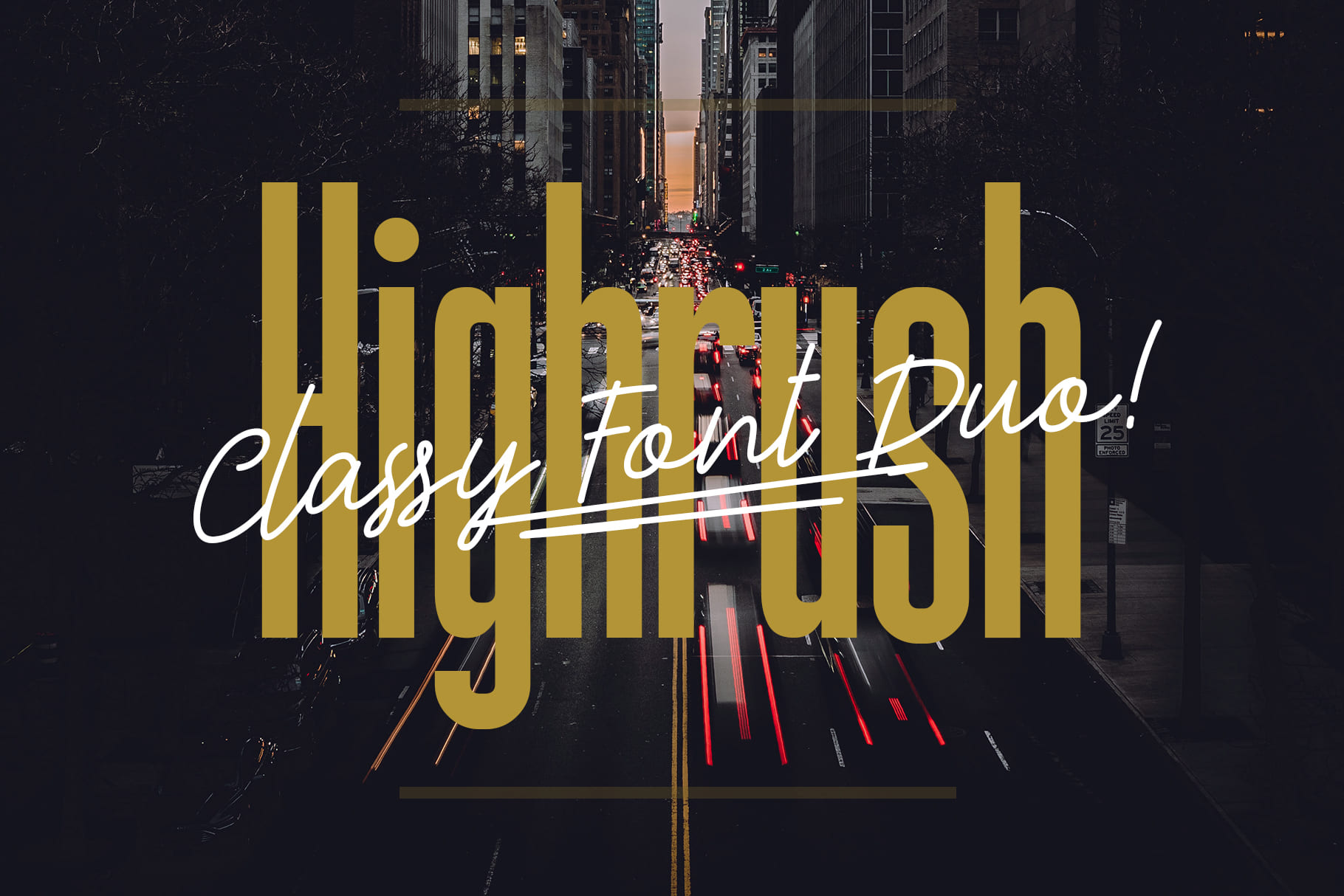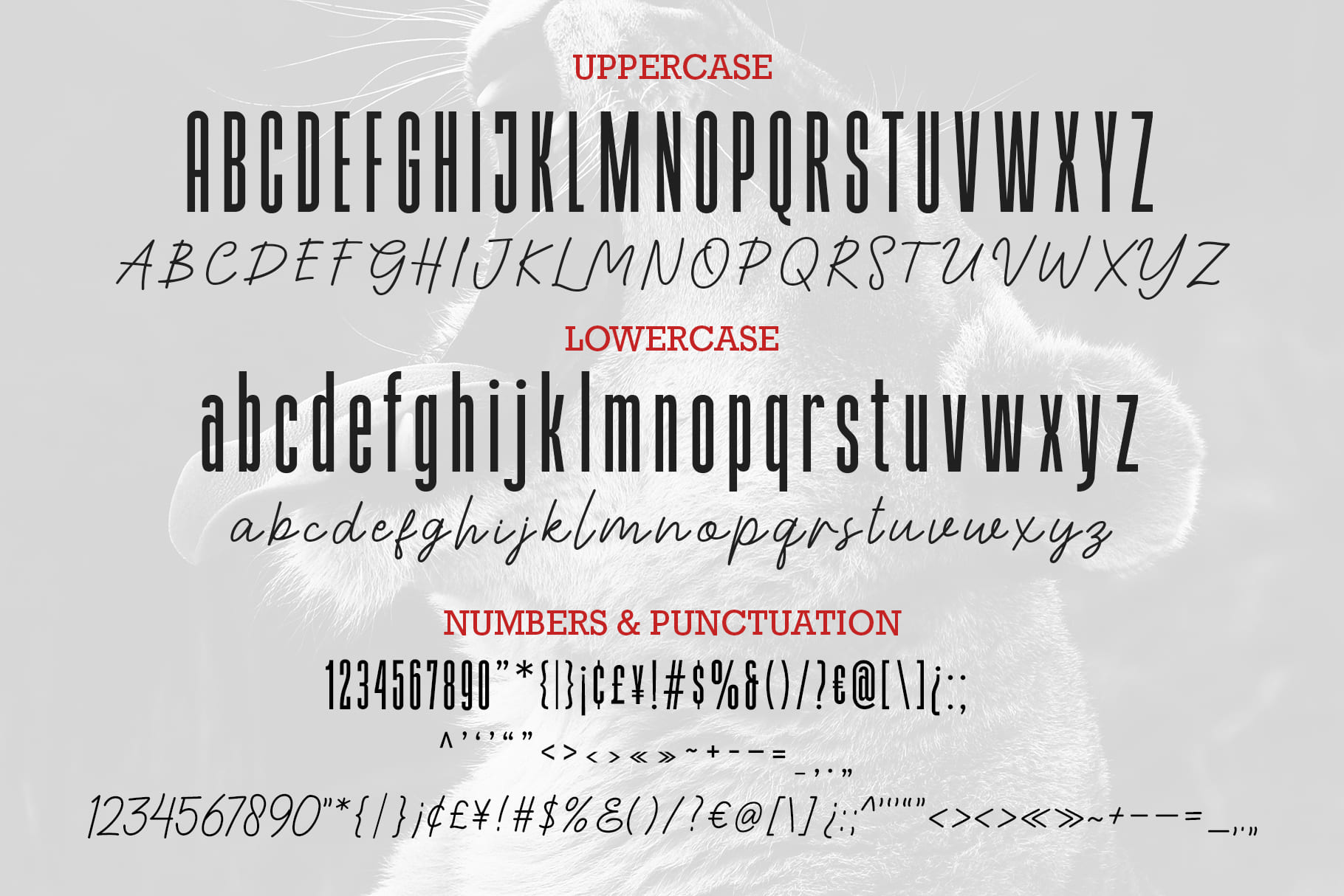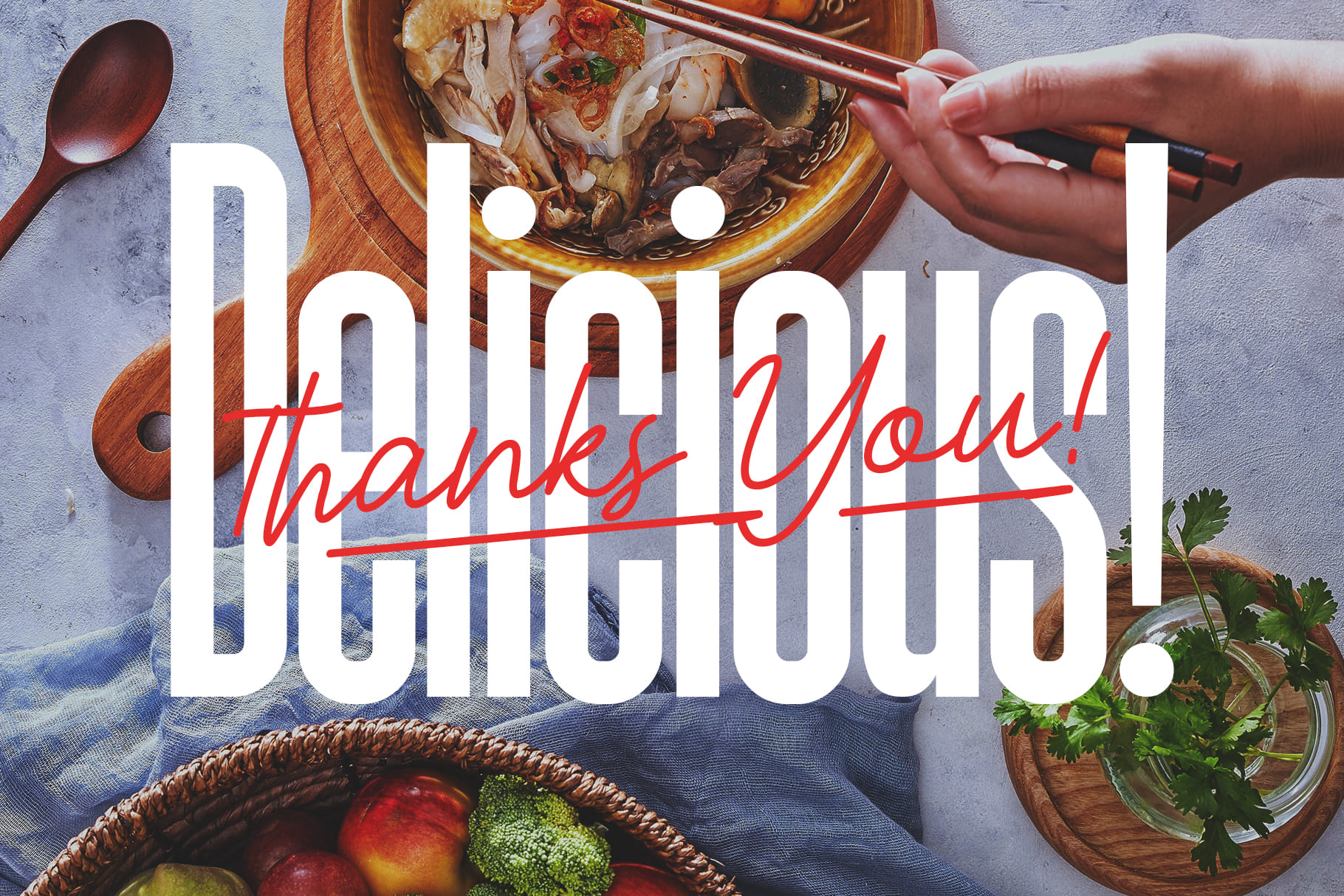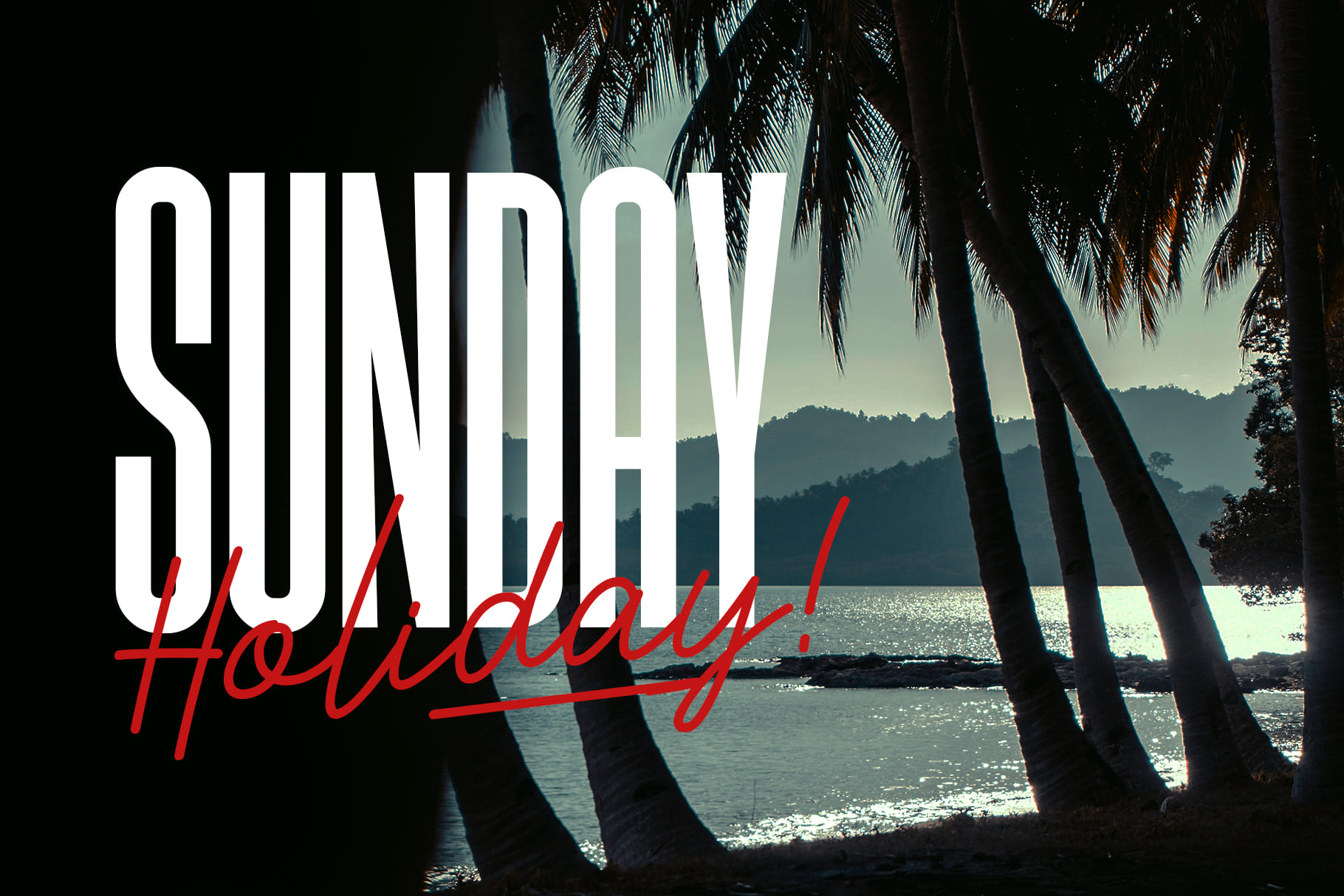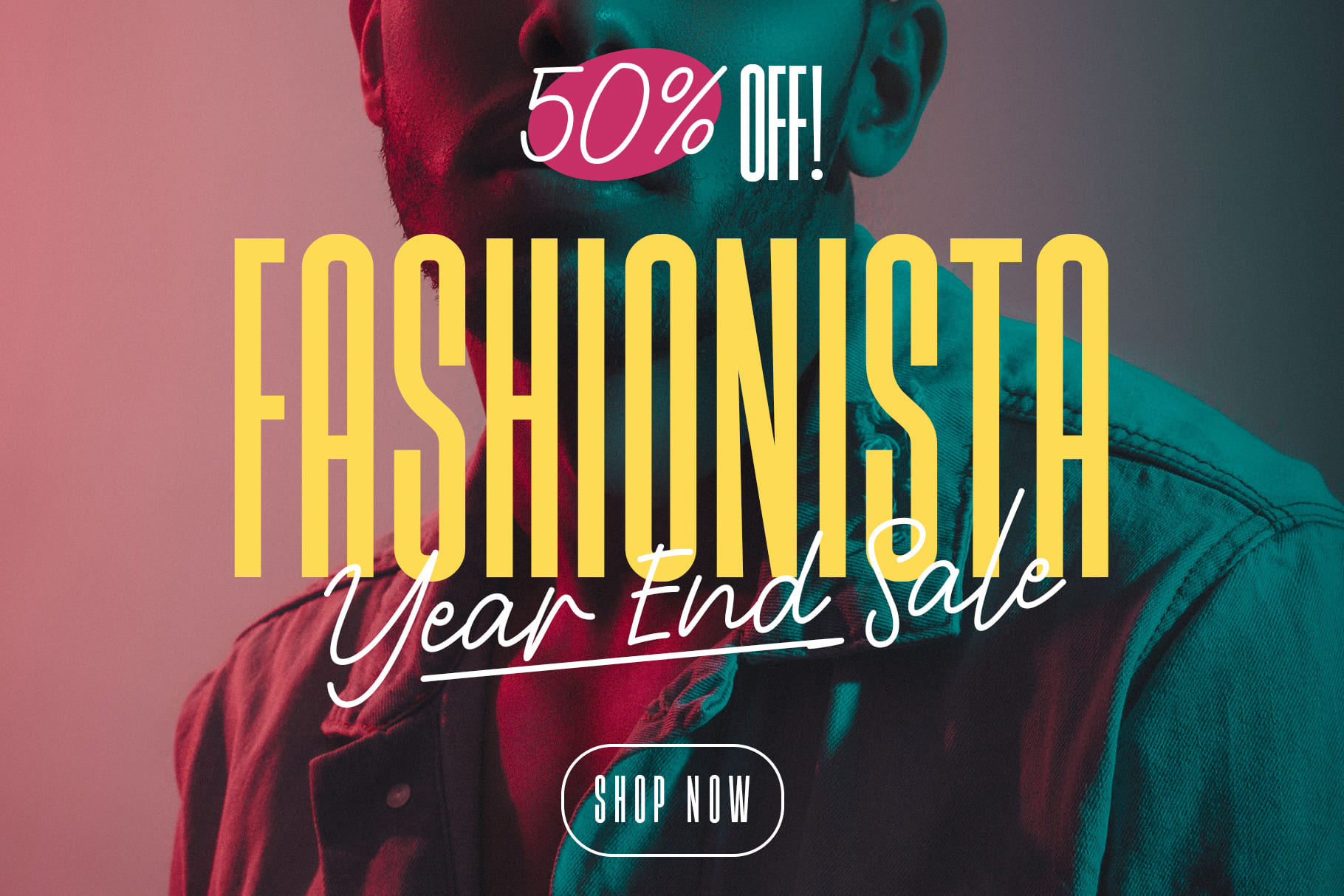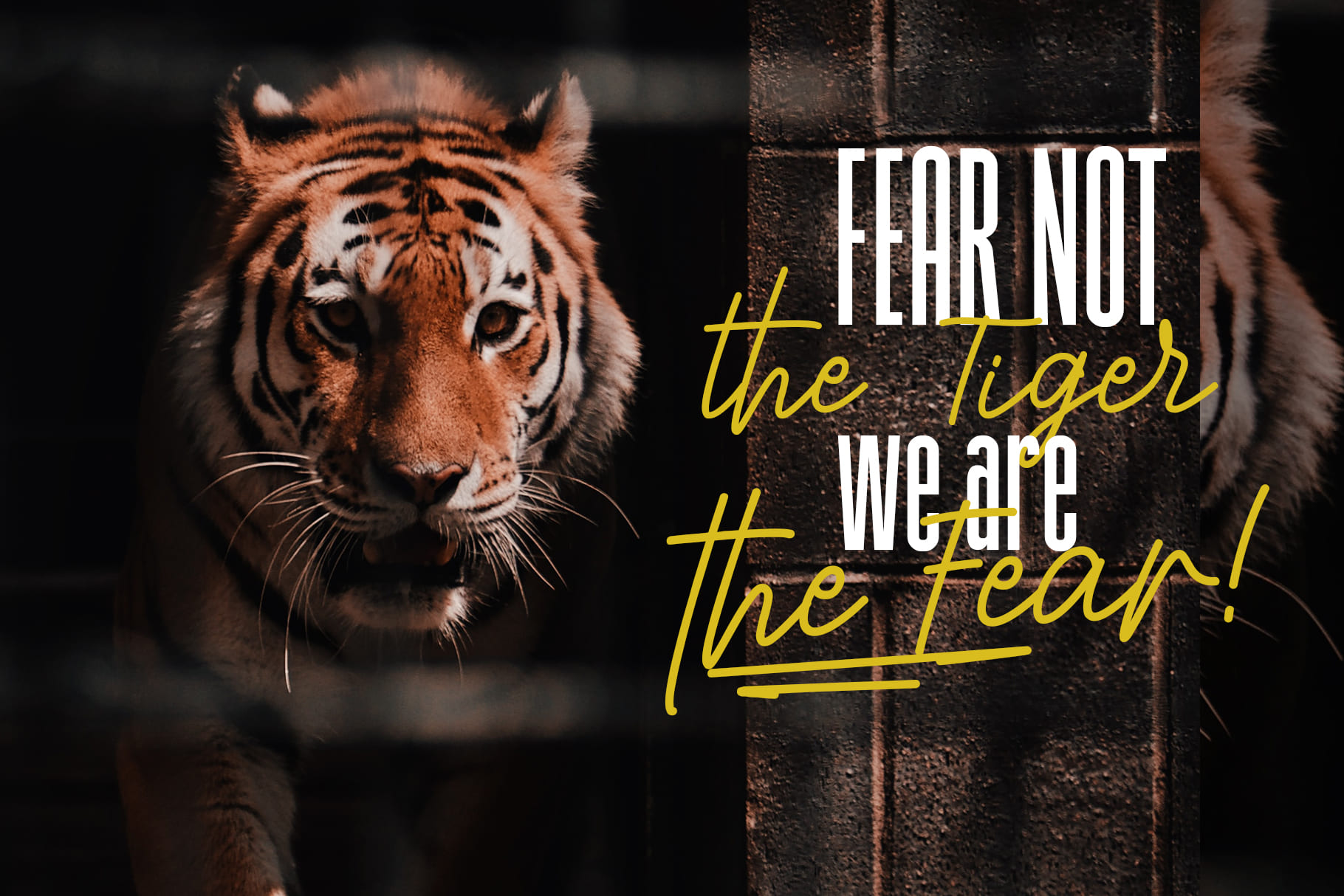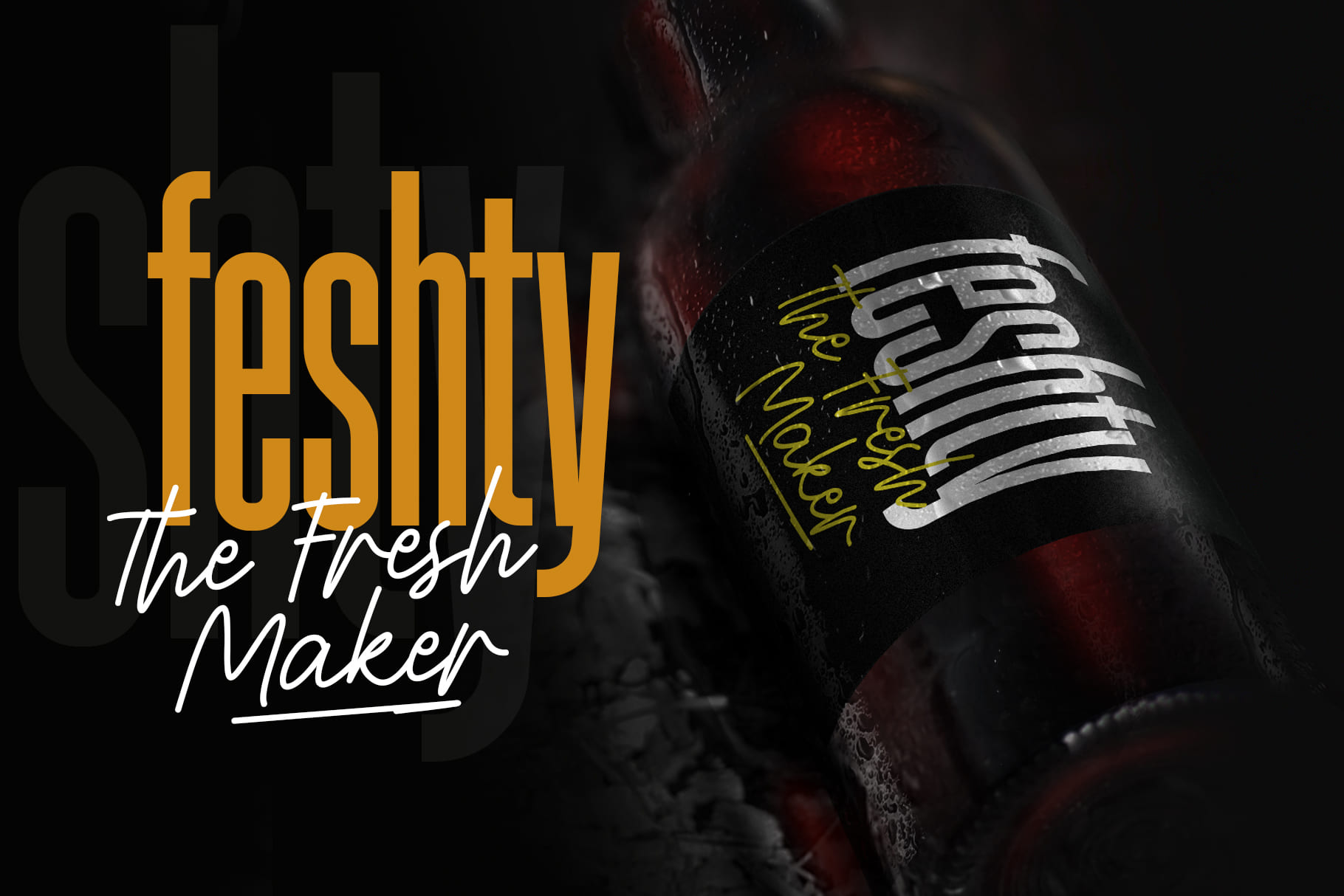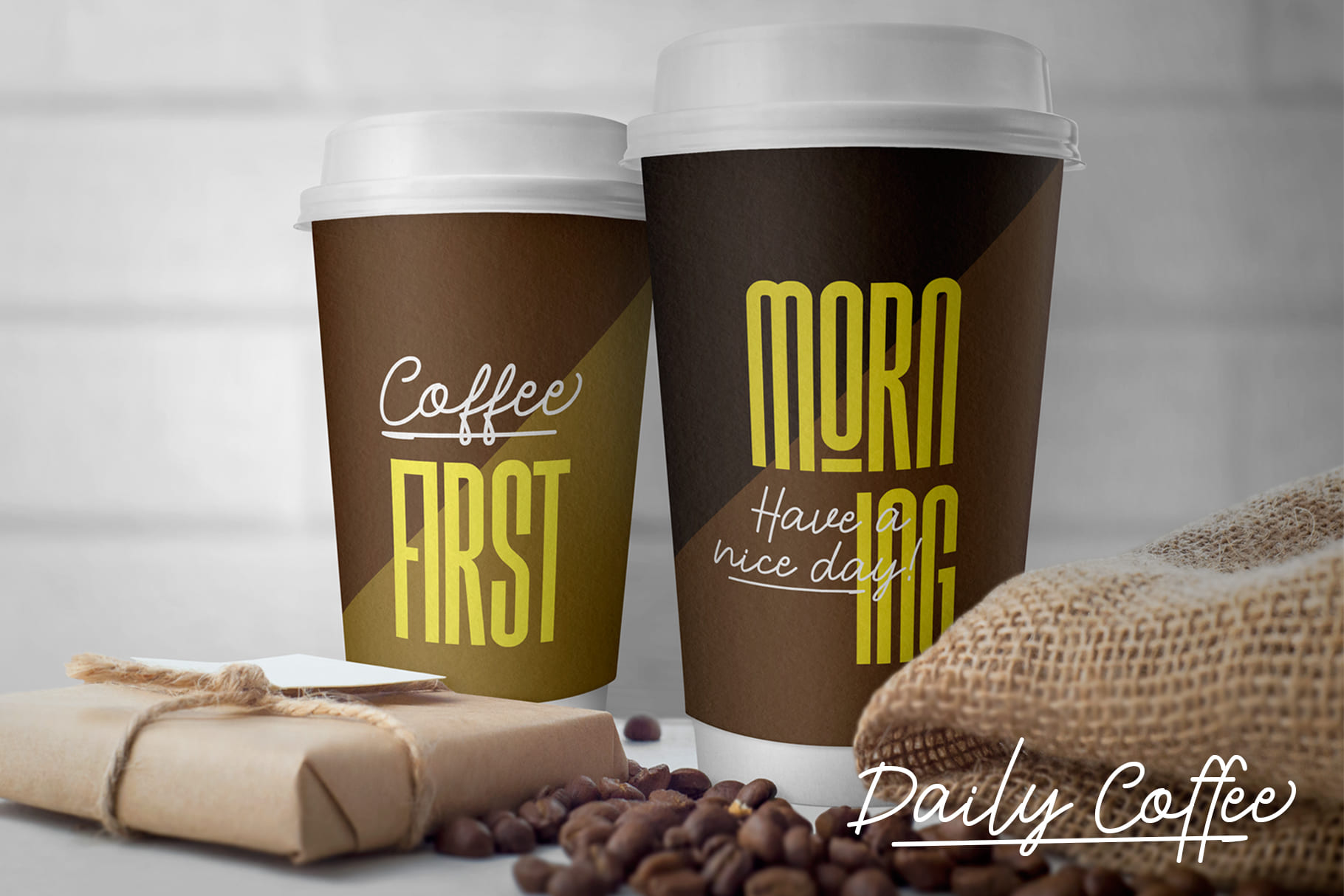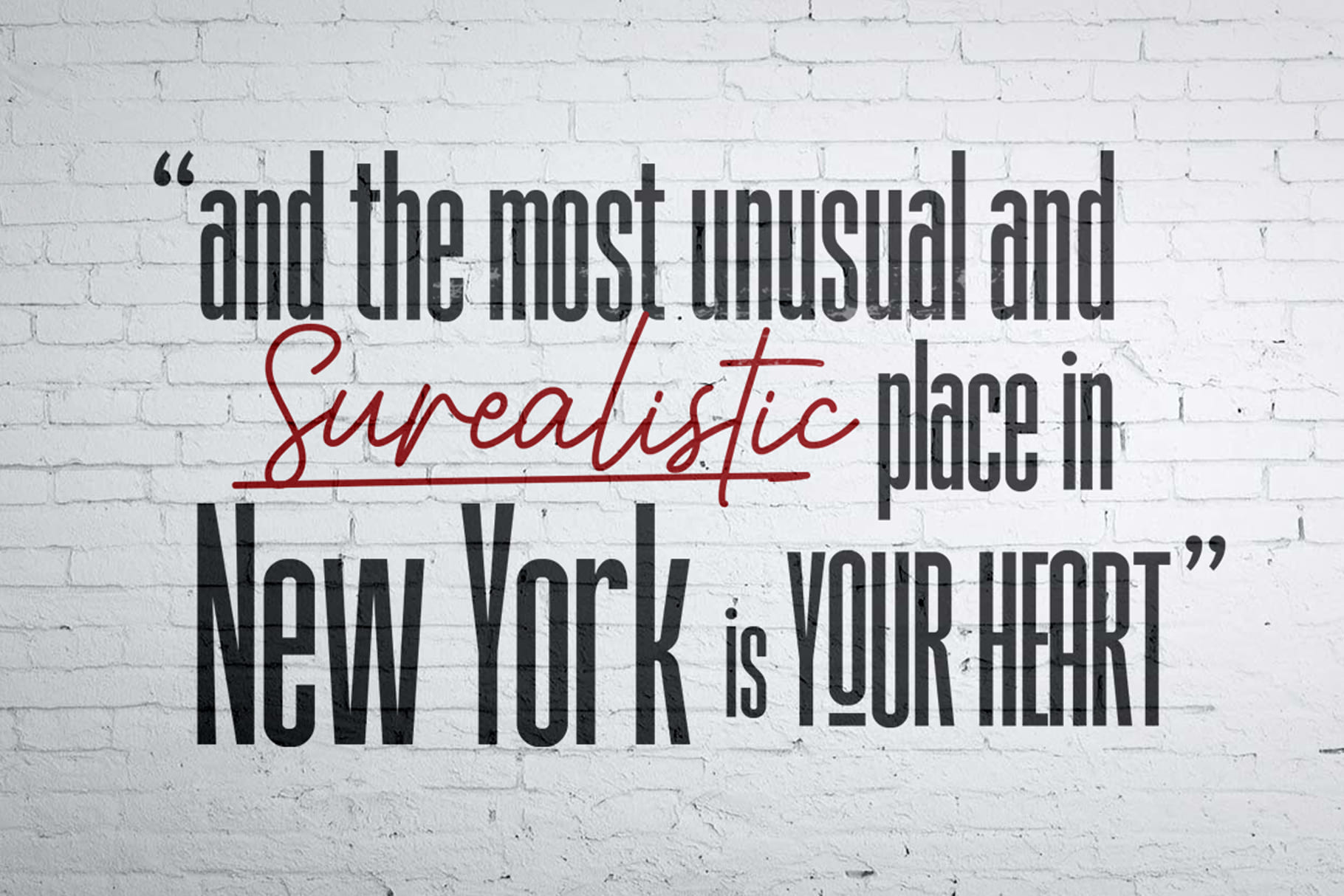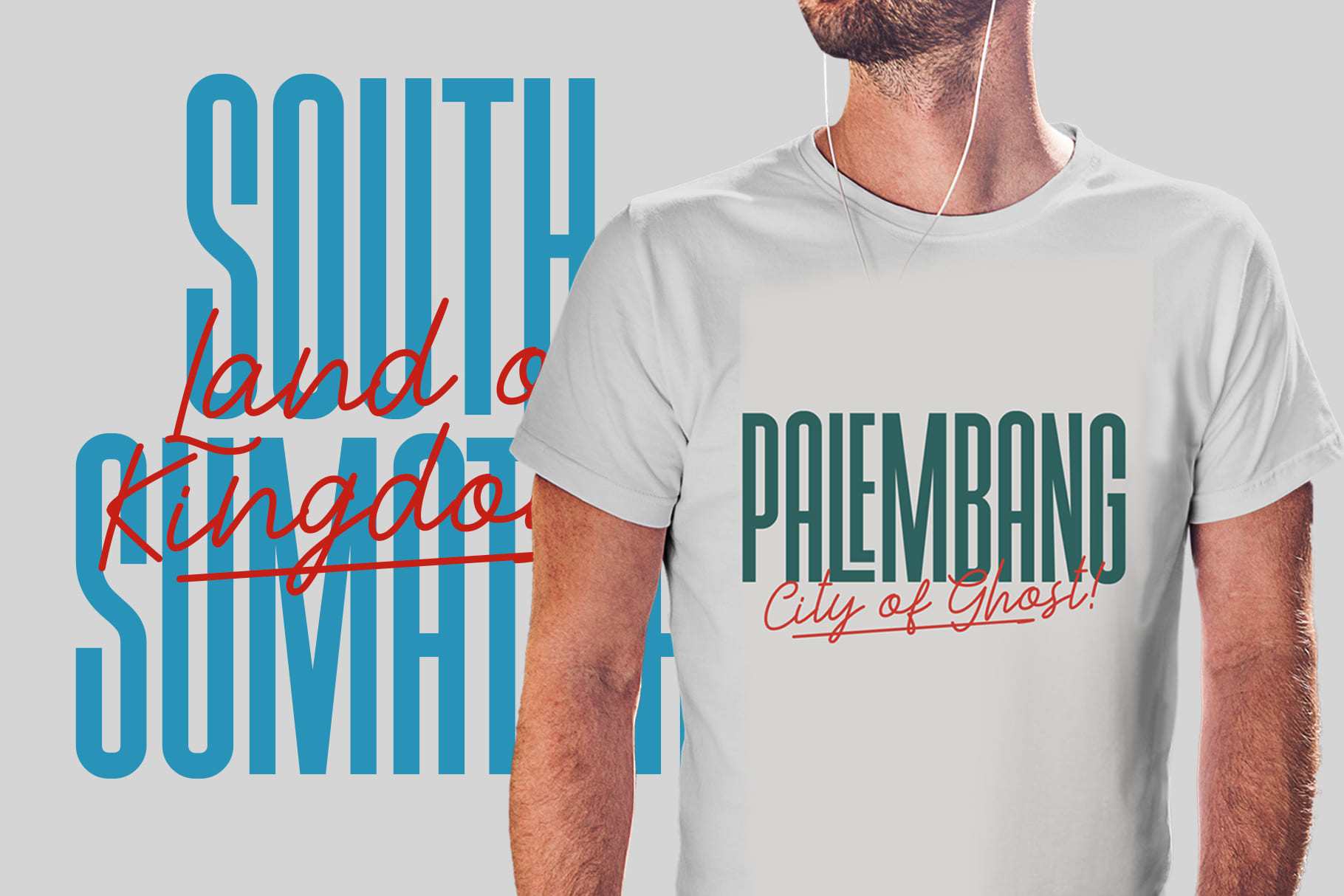
'Highrush Font Duo' is a beautiful combination of both a condensed and handwritten font. Perfect for headlines, magazines, quotes, posters, merchandise, apparel, social media posts, storefronts, and more.